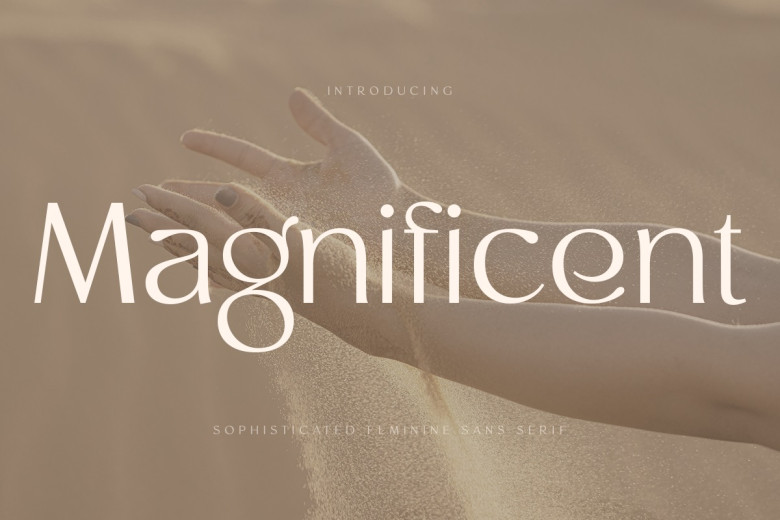
Magnificent Sans Font
Magnificent is a retro modern vintage font designed to be femine, The playful and unique Vintage Sans Serif combination will surely be good for your beautiful typography in different ways!Where is it perfect to use this font? Branding projects, company ID studies and advertisements, wedding design and print materials–beside every possible place!
Magnificent Sans Serif Font